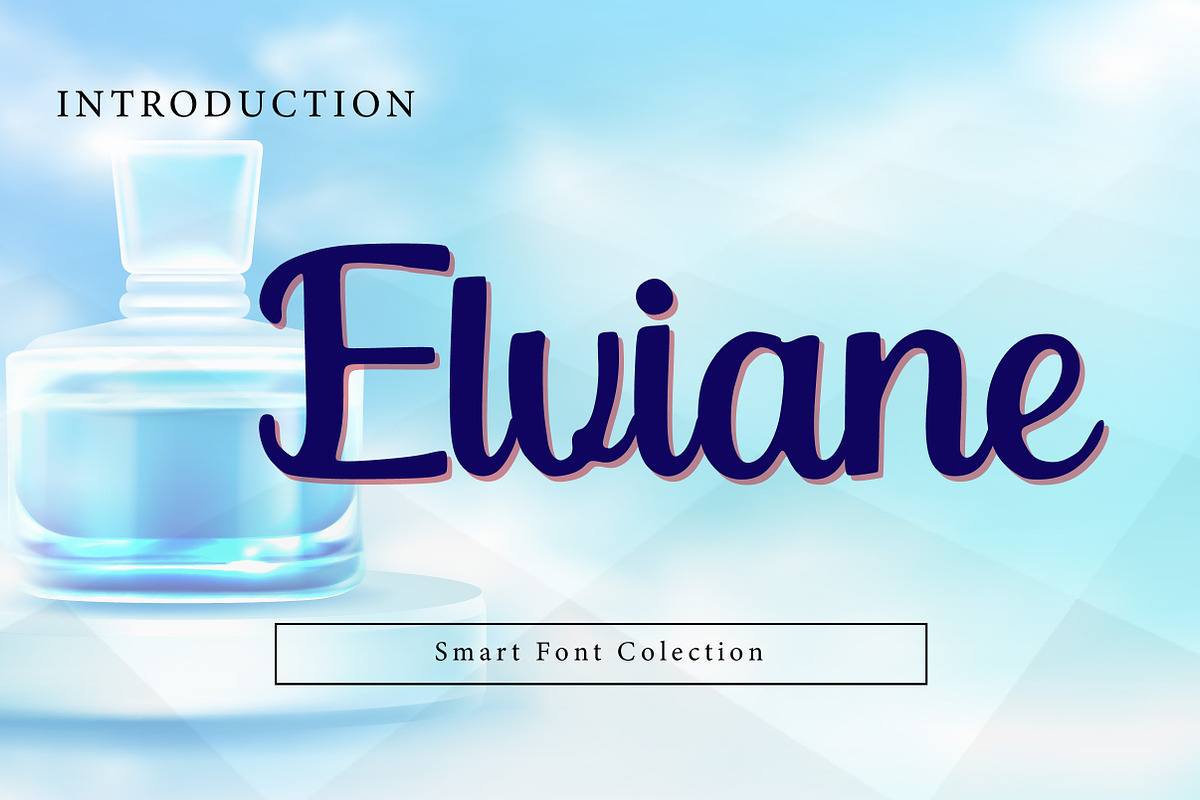
Elviane
Elvianet is a modern handwritten script font with smooth curves and a natural brush-style flow. It combines elegance with a friendly, casual personality, making it perfect for logos, branding, social media graphics, invitations, posters, packaging, and creative projects. Elvianet delivers excellent readability while adding a stylish, handcrafted touch to both digital and print designs.